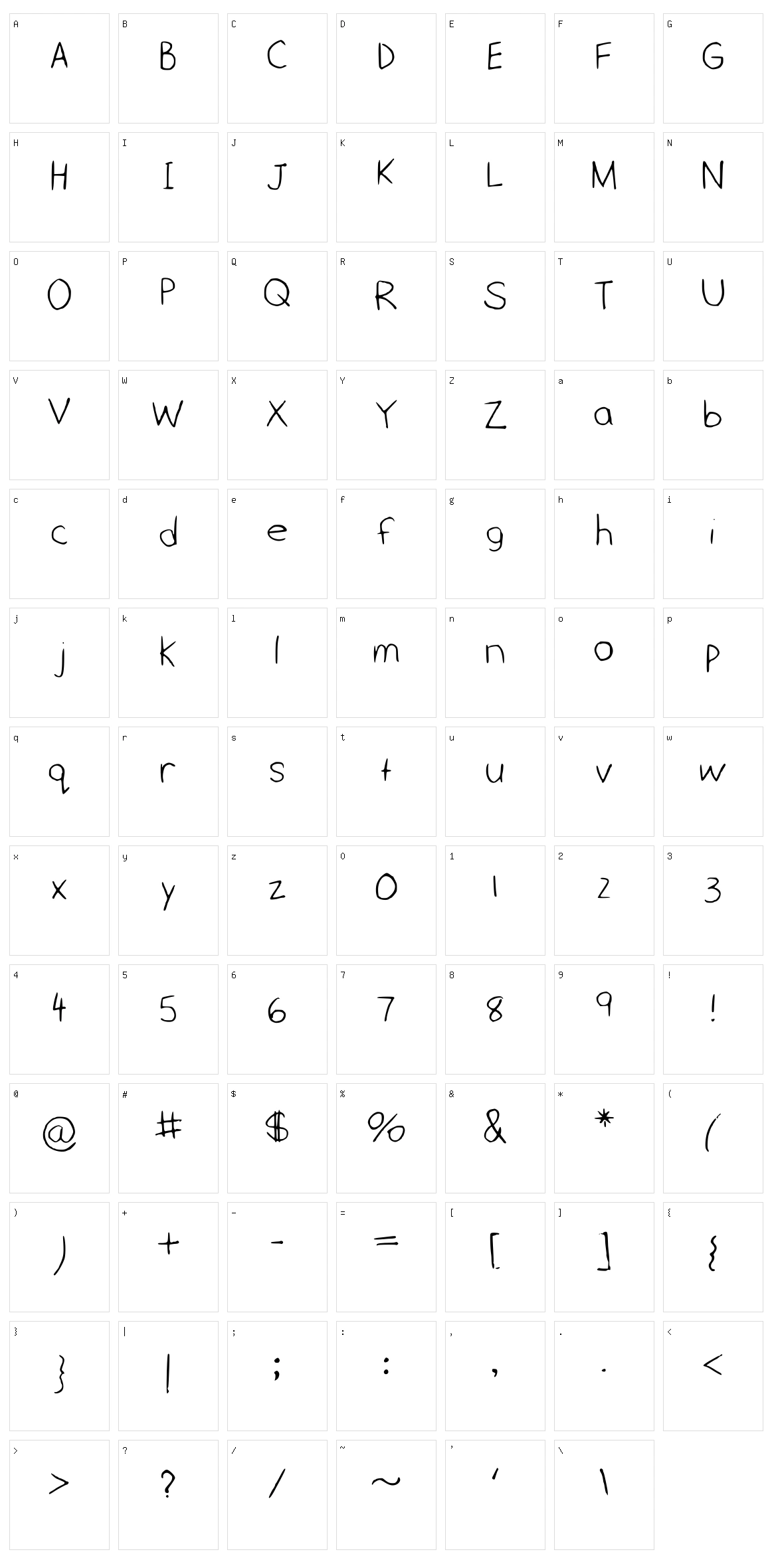
The free font Monica Galaxy is carefully designed by Monica T., showcasing a thoughtful balance of creativity and usability and falls under the Script font style. When you download the ZIP file, it contains only 19.8 KB of font files, making it lightweight and quick to download. Please review the license details below to understand permitted usage and distribution rights. If license information is not available, we recommend using this font for personal projects only or contacting the author directly for commercial usage permissions.